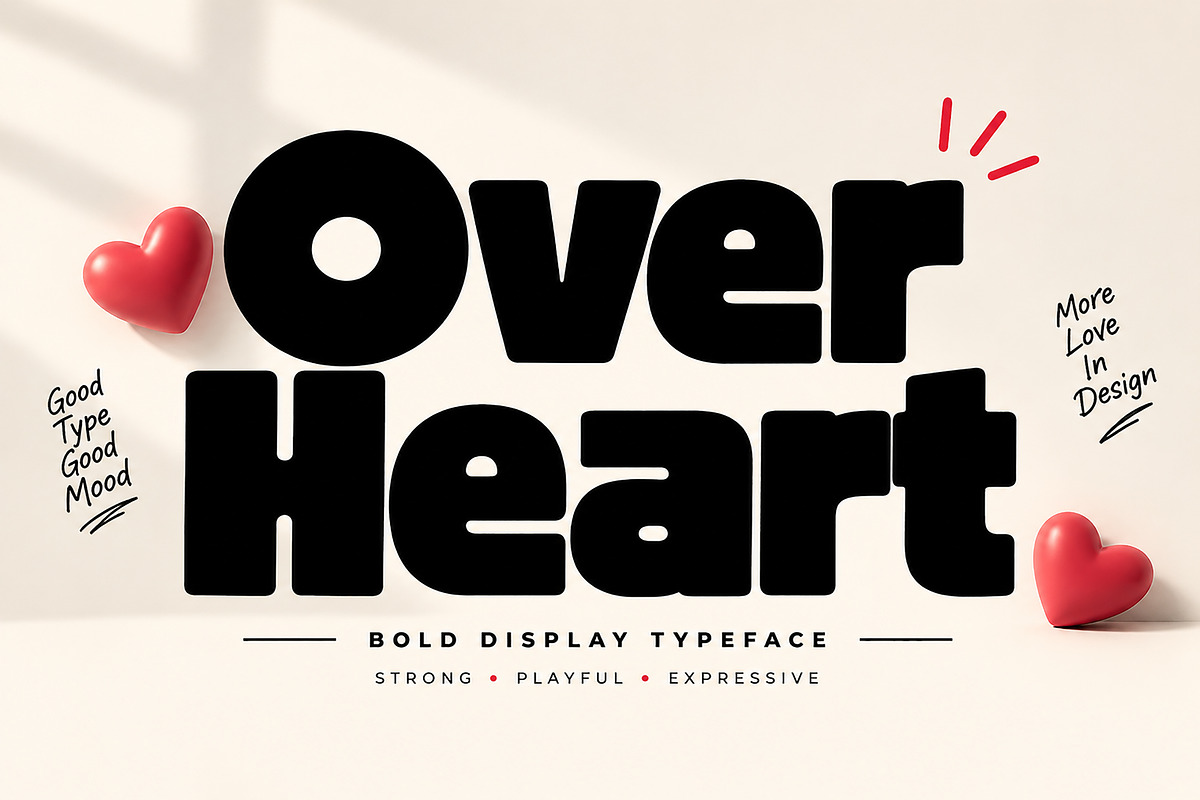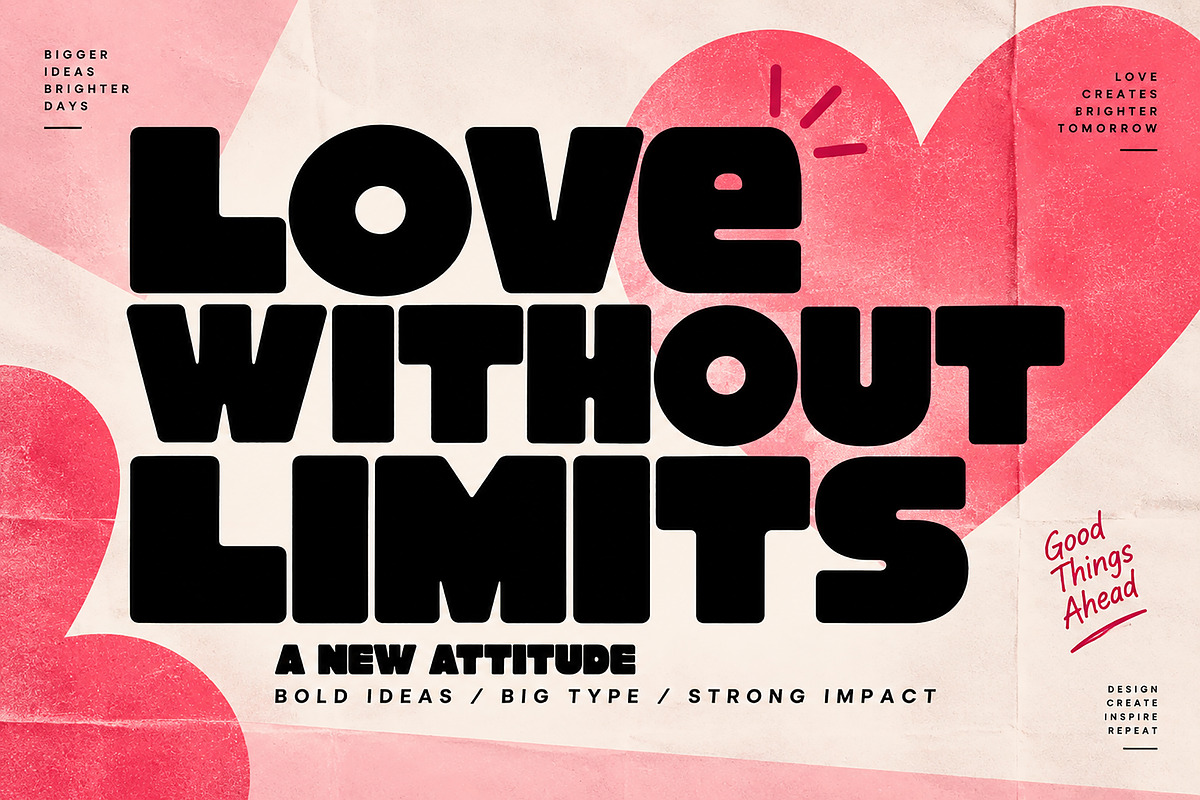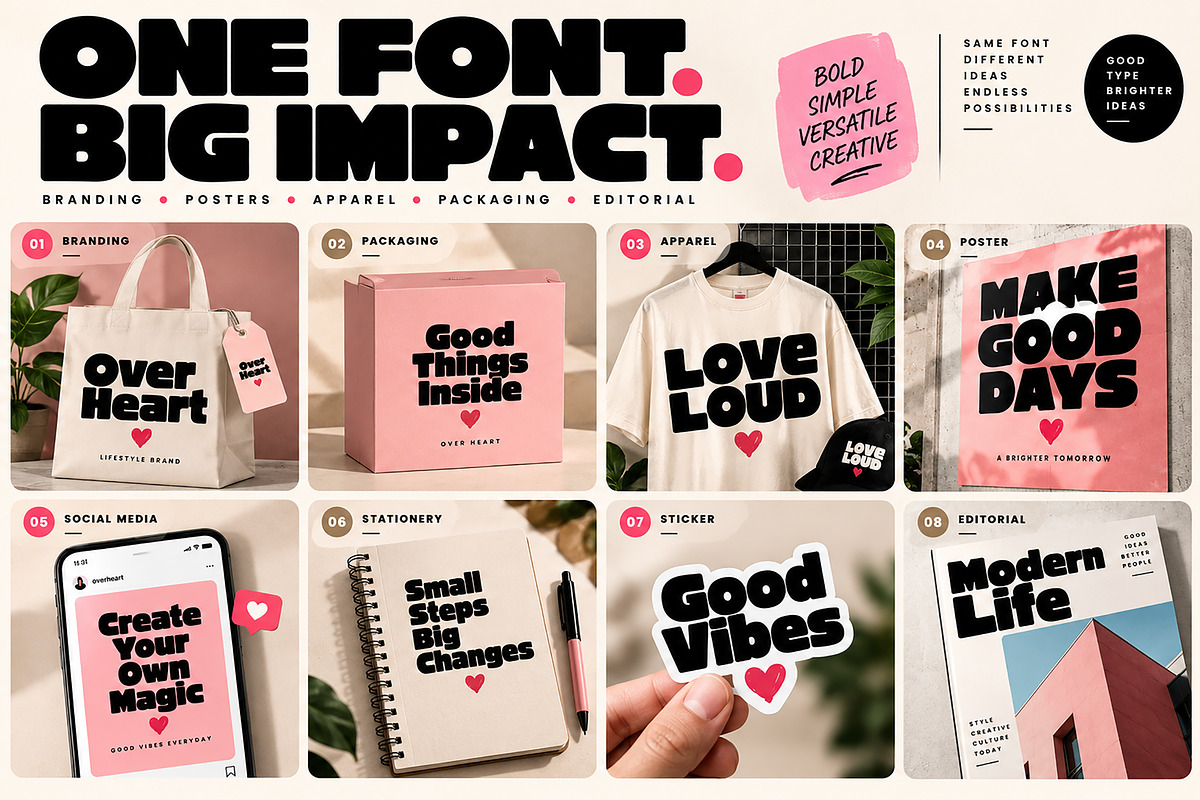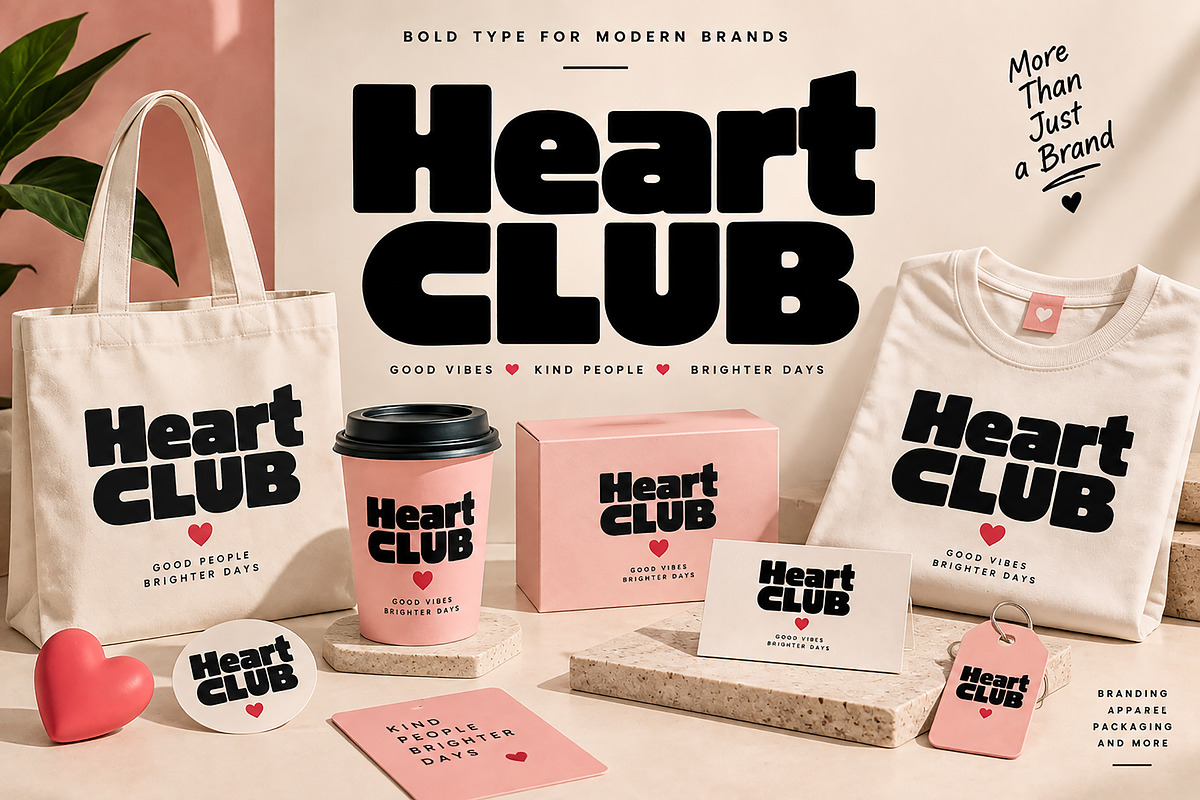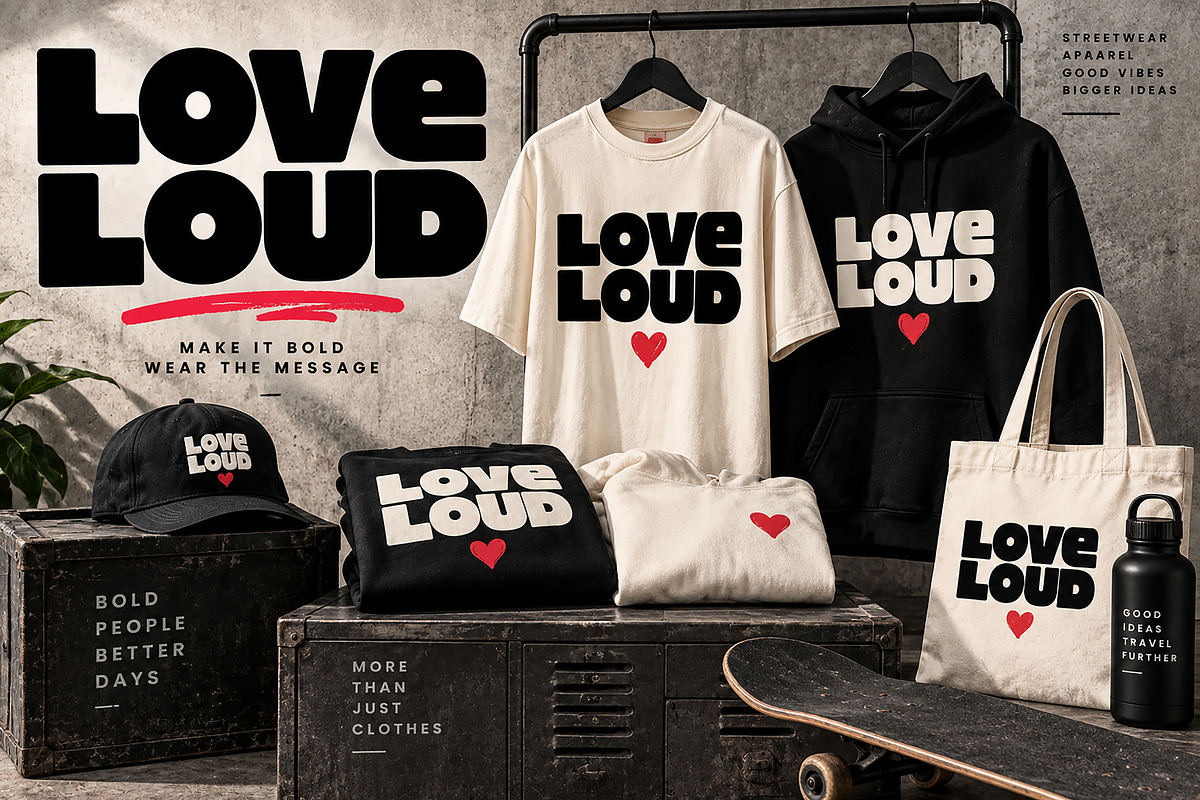
Over Heart
Over Heart is a bold, chunky display font designed to make your typography instantly stand out. With its heavy letterforms, rounded details, compact shapes, and playful visual personality, this typeface brings a strong and expressive look to modern design projects.
Perfect for logos, branding, posters, apparel, packaging, stickers, social media graphics, headlines, editorial designs, merchandise, labels, and promotional artwork.
Its bold presence works especially well when you want your message to become the main visual element of the design.
Logo & Brand Identity
T-Shirt & Streetwear Designs
Posters & Advertising
Packaging & Product Labels
Stickers & Merchandise
Editorial Headlines
Greeting Cards
Badges & Promotional Designs
Creative Typography
Print & Digital Projects
Bold & chunky display style
Rounded, playful letterforms
Strong visual impact
Great for large headlines
Versatile for branding and merchandise
Ideal for both print and digital projects
Note: This is a display typeface created primarily for impactful headlines, branding, promotional graphics, and creative typography.